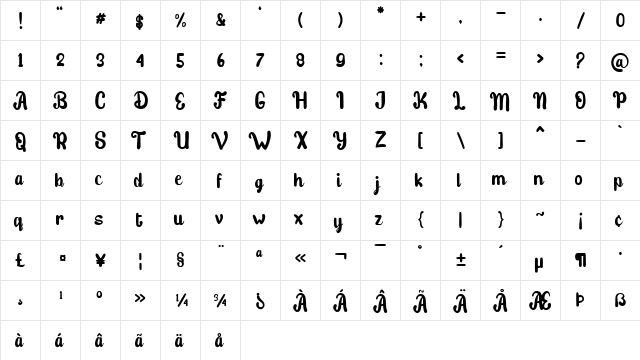
Stibold Regular Font Preview
Stibold Regular
Stibold Regular Font Details
Design Context for Stibold Typeface
Stibold is a composed and adaptable typeface that performs quietly and consistently across a wide range of design contexts. Its bold stroke weight gives it real presence on the page.